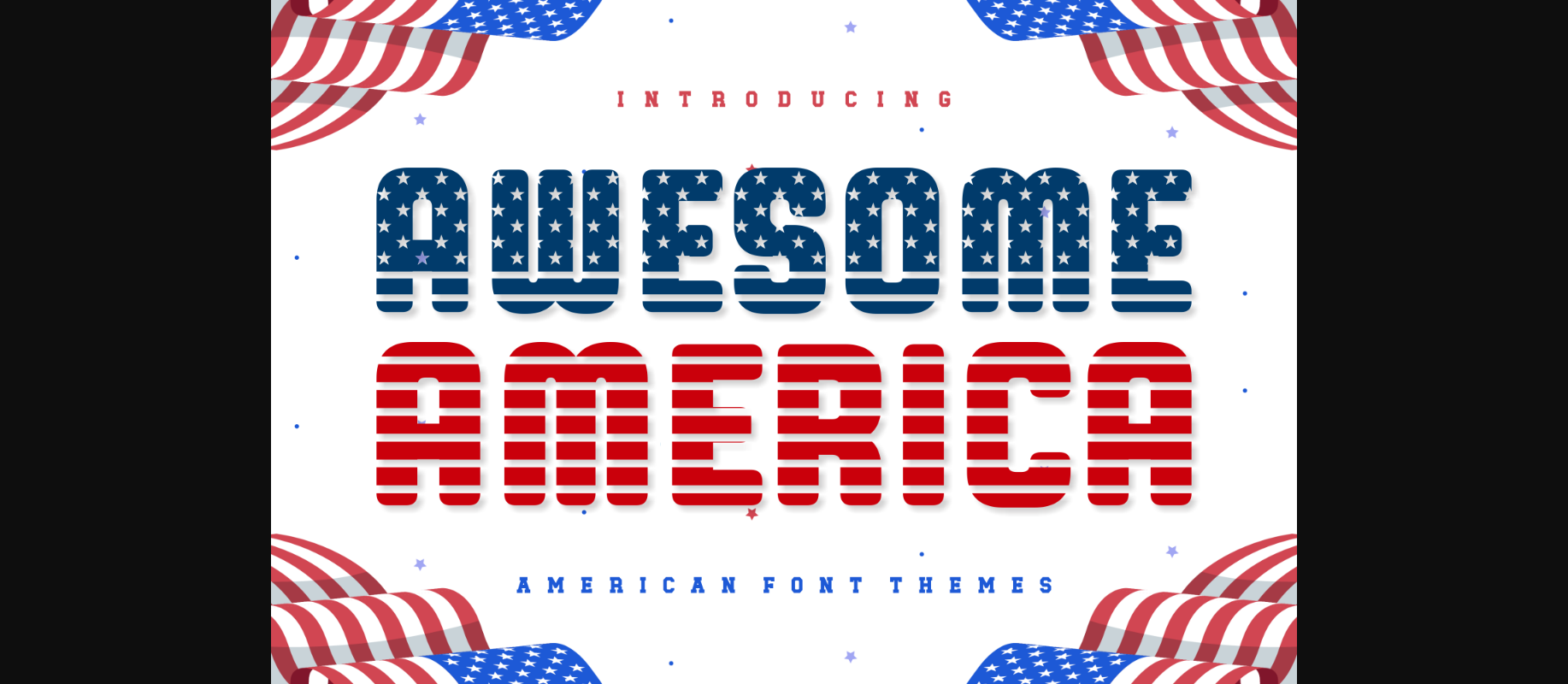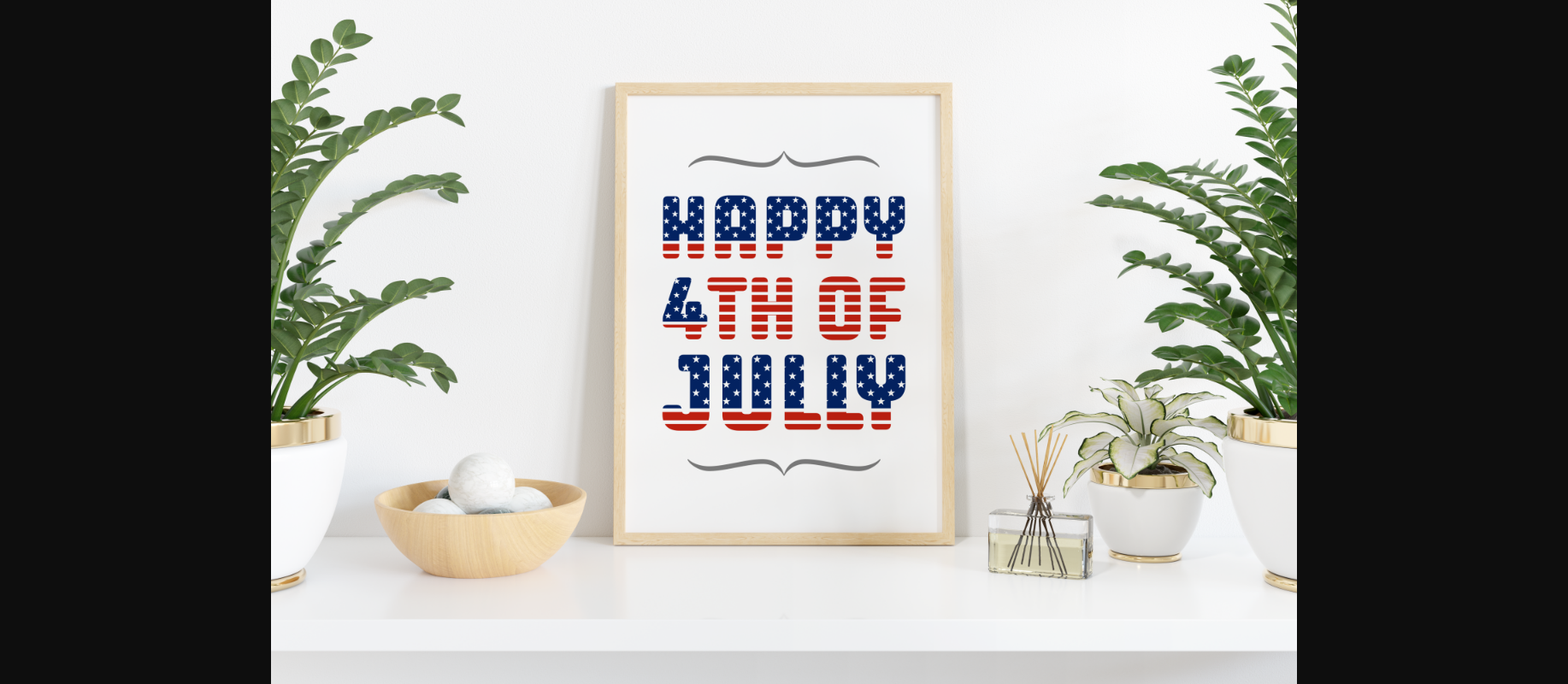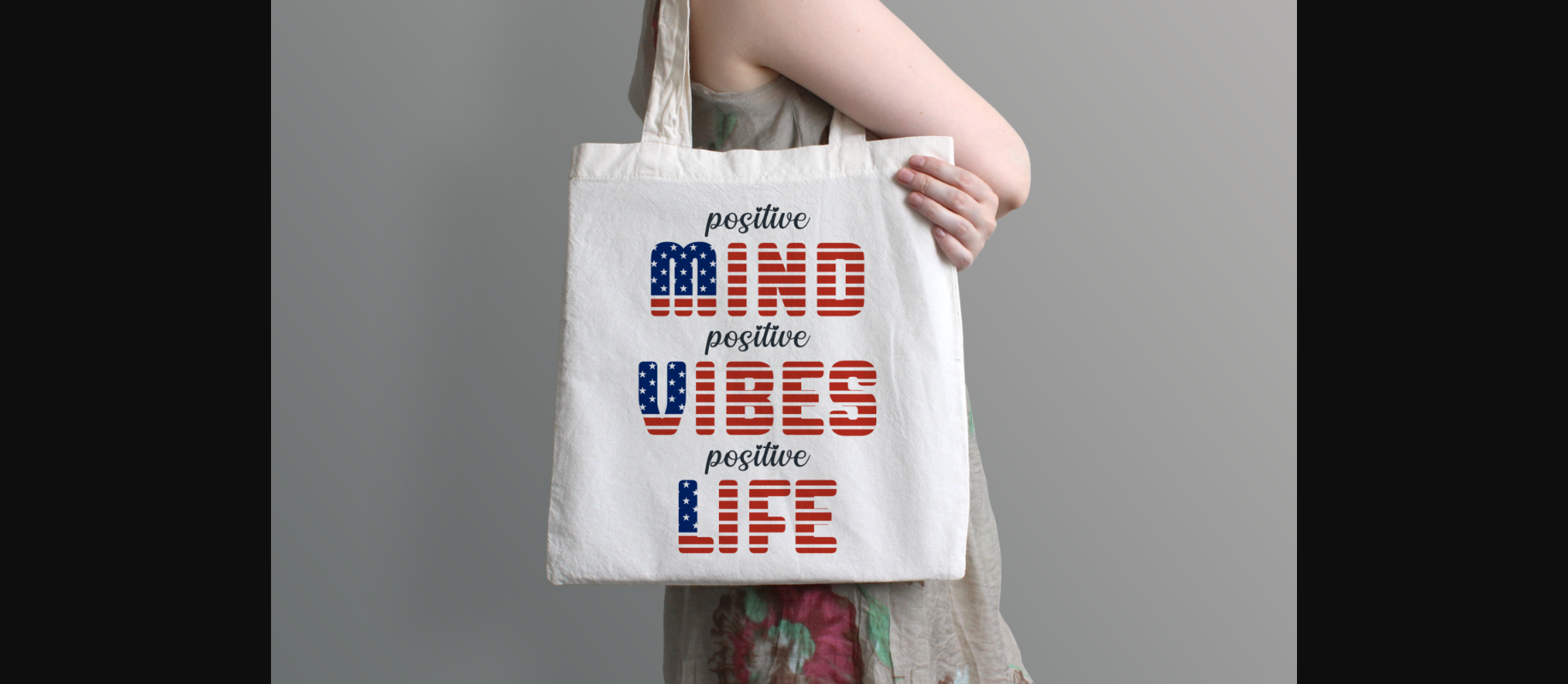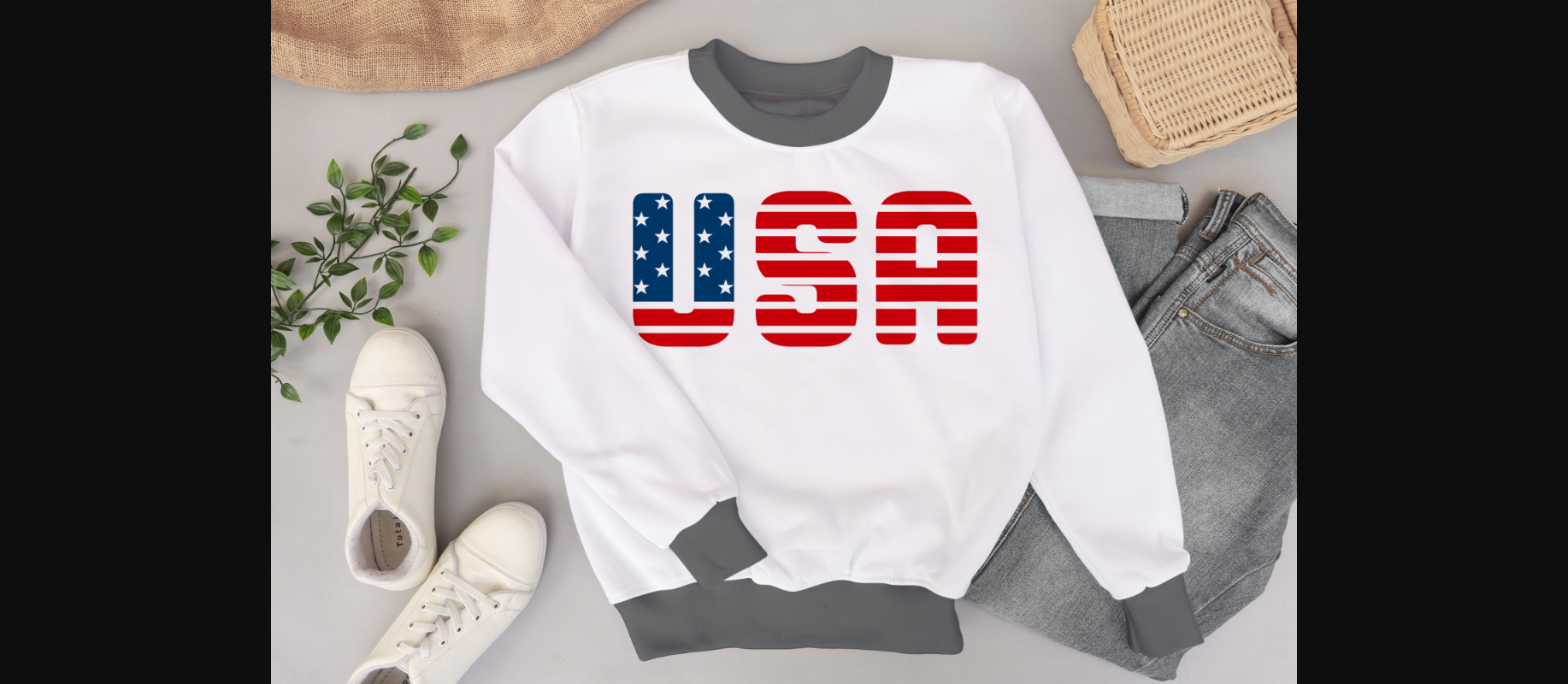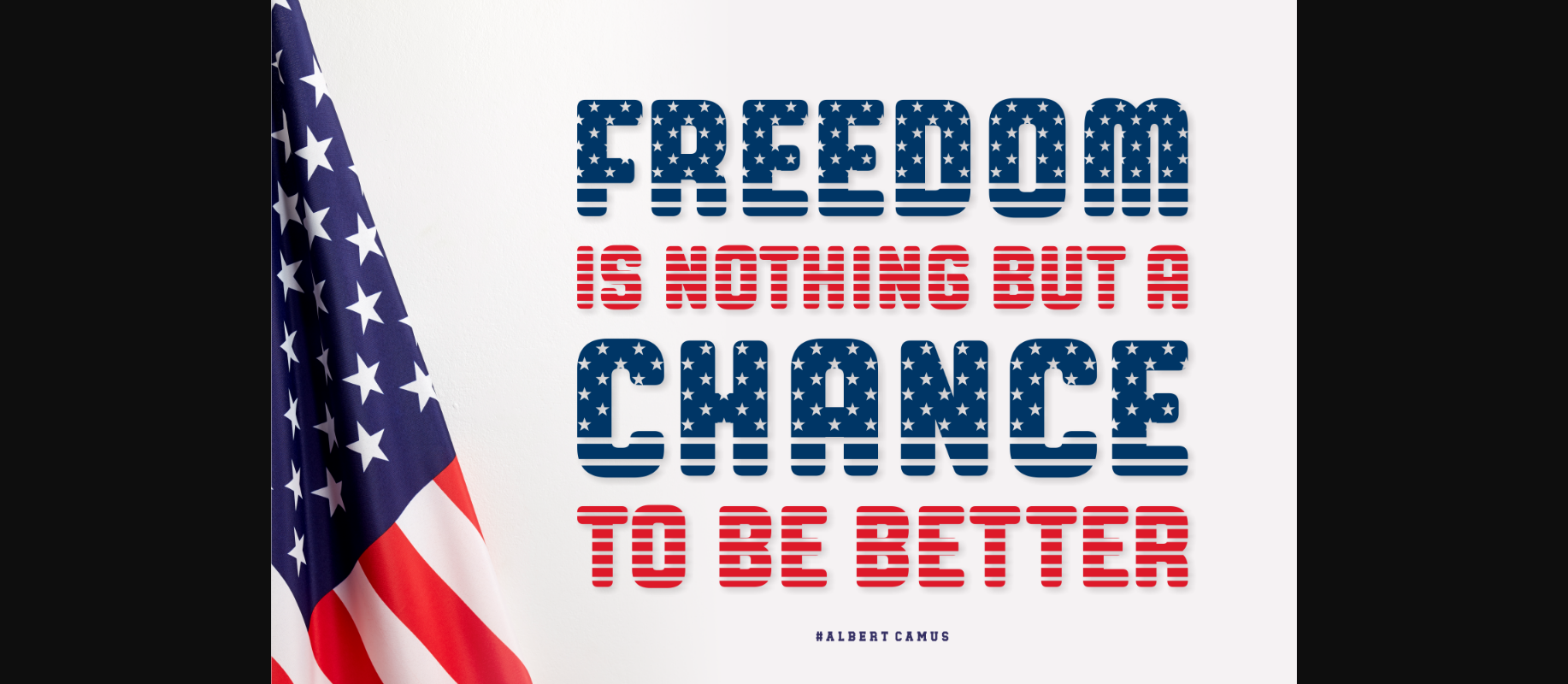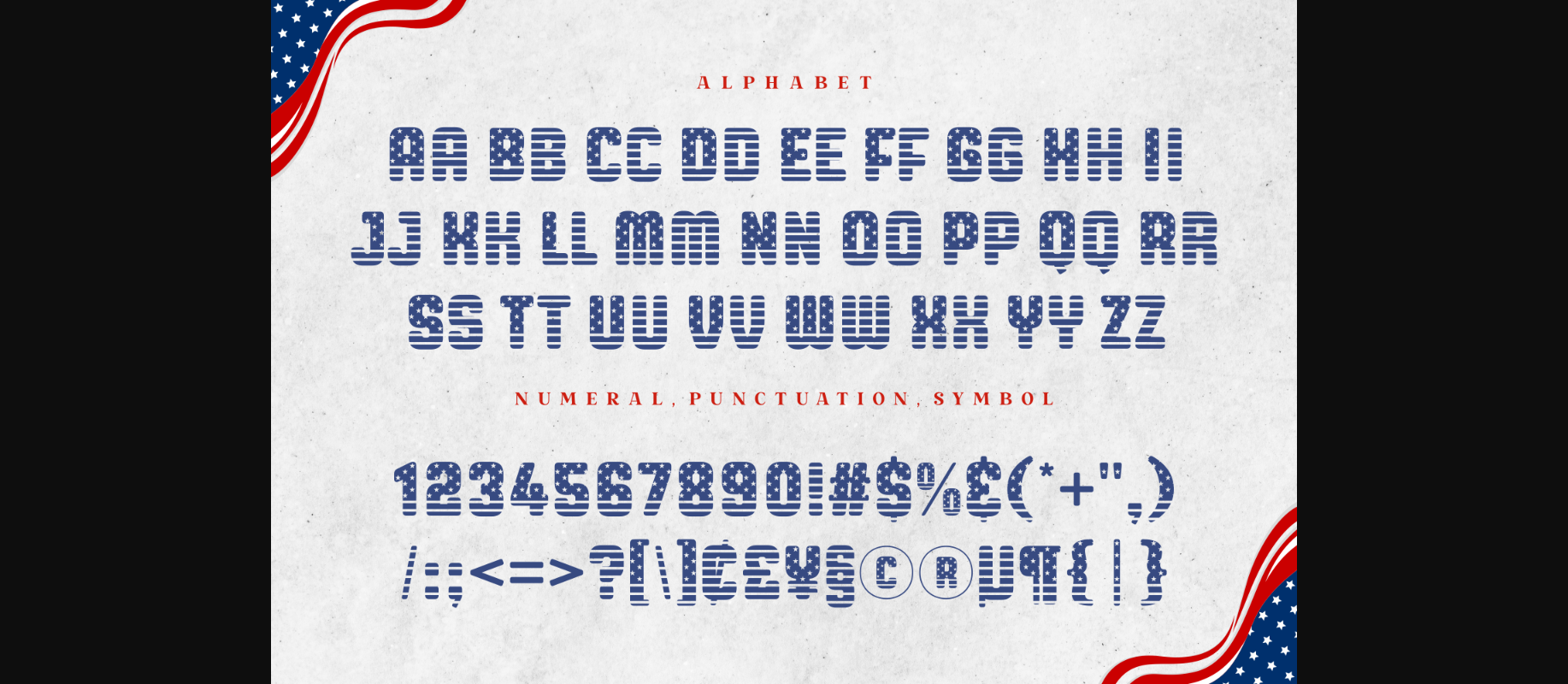
Awesome America Font
About Awesome America Font
This decorative font is perfect for projects that celebrate American culture, history, or events such as Independence Day, Veterans Day, or Memorial Day. It can be used to create impactful headlines, banners, or signage, infusing a sense of national pride and identity into any design. The American flag decorative font captures the essence of patriotism, freedom, and unity. Its distinctive design serves as a visual reminder of the ideals and values that the American flag represents, making it an excellent choice for adding a touch of national pride and identity to various design projects.